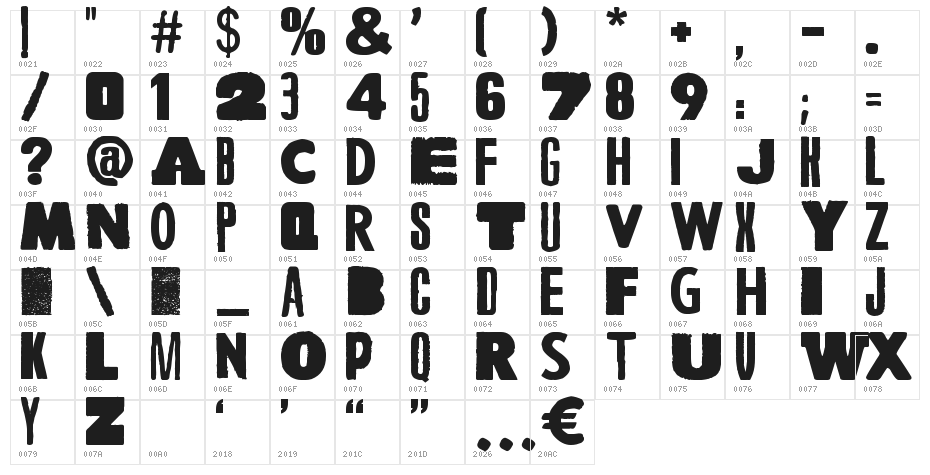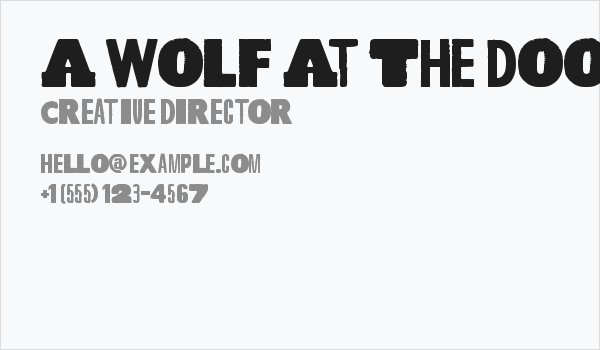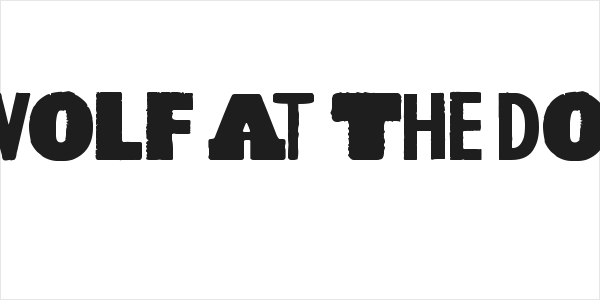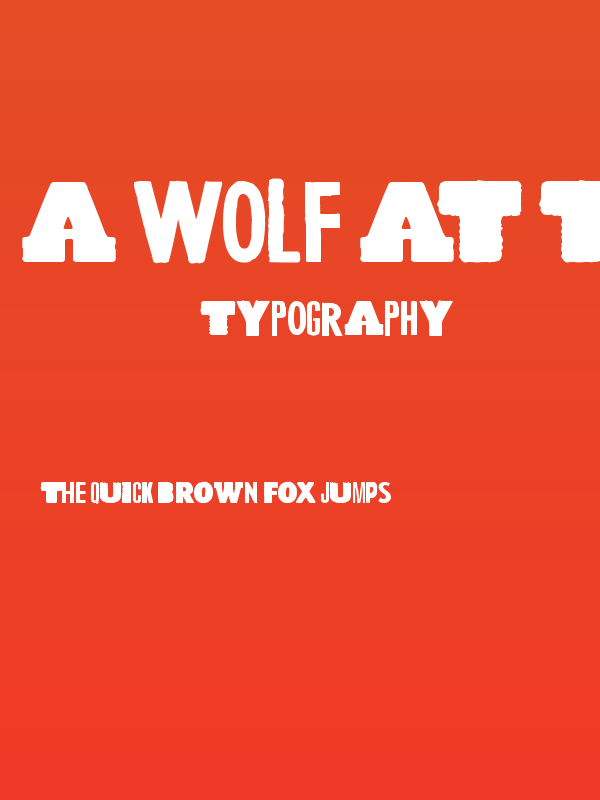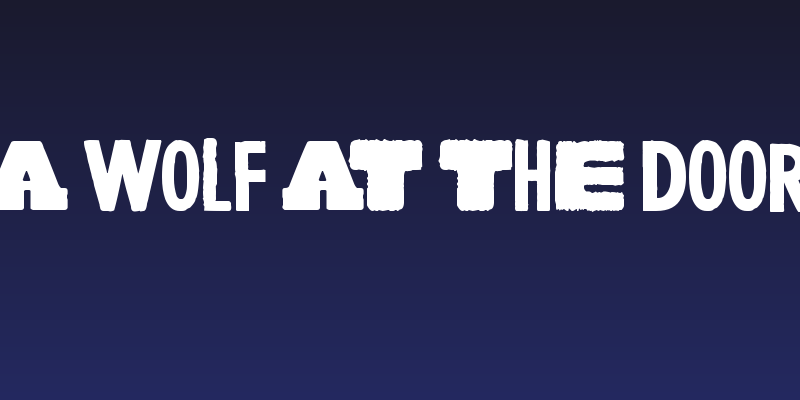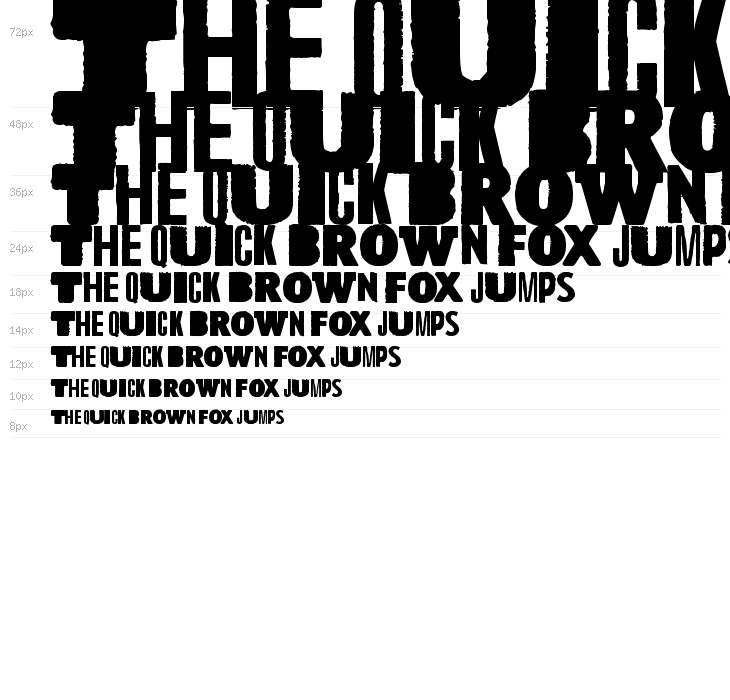
A Wolf At The Door Font
A Wolf At The Door Description
This font features a bold, distressed style with a rugged and textured appearance. The characters are blocky and substantial, giving a sense of strength and impact. The uneven edges and rough texture suggest a hand-crafted or vintage feel, making it ideal for projects that require a gritty, authentic look. The uppercase letters are particularly prominent, with a strong presence that commands attention. The numbers and special characters maintain the same bold and distressed aesthetic, ensuring consistency across all elements.
| Proposed Projects | Ideal for posters, album covers, branding for outdoor or adventure-themed products, and any design needing a strong, vintage aesthetic. |